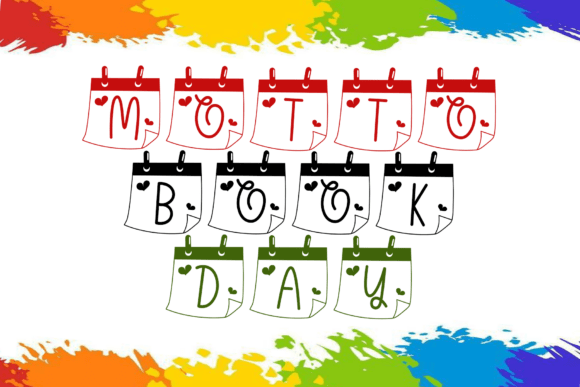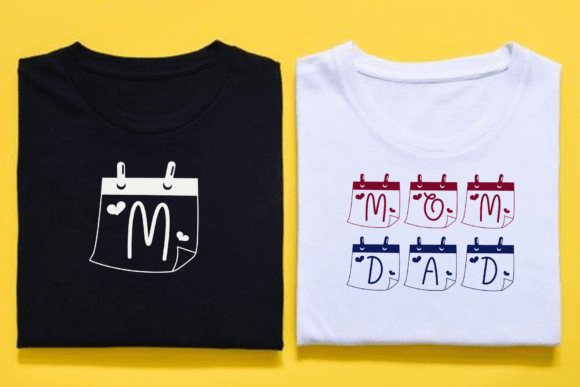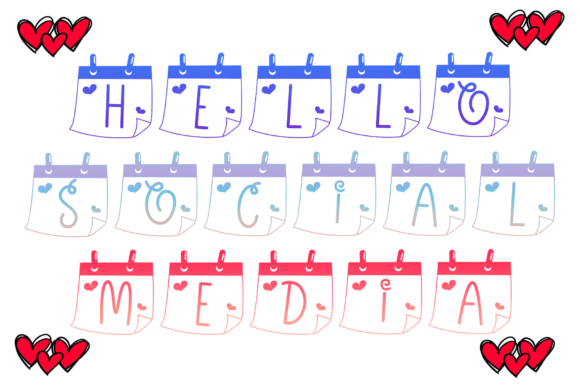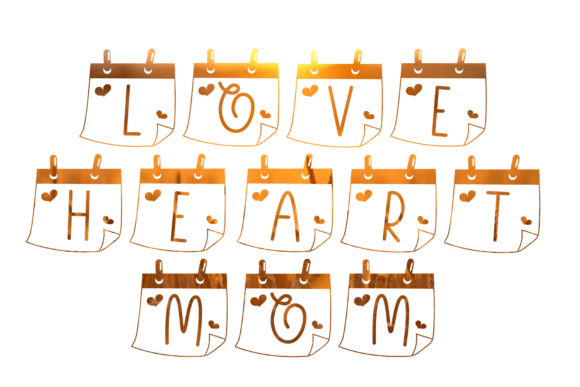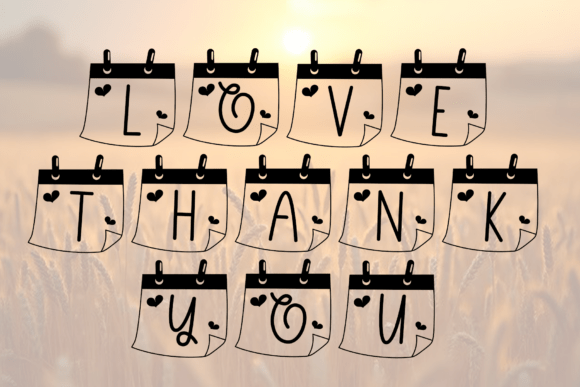
The Joy of Kids Party Font: Bringing Fun to Your Designs
Have you ever been brainstorming a creative project with kids and suddenly, a burst of colorful chaos erupts in your imagination? Maybe it’s a birthday party invitation, a classroom craft, or a children’s book that’s begging to be brought to life. Whatever the project, one thing’s for sure – it needs a font that’s just as playful and energetic as the kids themselves.
Enter Kids Party Font, a delightful display font that’s bursting with creativity and designed to bring a smile to your face. With its hand-drawn feel and adorable notepad-style banners, this font is perfect for adding a touch of whimsy to your designs. Whether you’re a designer looking to add some fun to your projects or a parent wanting to make your child’s birthday party invitations truly special, Kids Party Font is the perfect tool to have in your arsenal.
Kids Party Font Key Features
- Font Style: A playful, cursive font with a fun and energetic feel, perfect for kids’ party invitations, decorations, and other materials.
- Unique Characteristics: Features a customizable color scheme, allowing users to change the font color to match their party theme or brand identity.
- Script and Ornament Options: Includes a range of script and ornament options to add extra flair and personality to party designs.
Designer Review: Kids Party Font
Overall, I’d say the Kids Party Font has some nice touches, but it’s not without its flaws. ✨ First, I appreciate the playful, cursive feel of the font. It’s perfect for birthday invitations, party decorations, or any other project that needs a lighthearted vibe. The font is also highly customizable, with a wide range of size and color options available.
- ✨ The font is highly customizable, with a wide range of size and color options available.
- ✨ The playful, cursive feel of the font is perfect for birthday invitations, party decorations, or any other project that needs a lighthearted vibe.
- ✨ The font is suitable for both digital and print projects.
However, there are some limitations to consider ⚠️. The font can be a bit too ornate for some projects, and the cursive style can be difficult to read at small font sizes. Additionally, the font is not available in as many languages as some other fonts, which can be a limitation for international projects.
- ⚠️ The font can be a bit too ornate for some projects.
- ⚠️ The cursive style can be difficult to read at small font sizes.
- ⚠️ The font is not available in as many languages as some other fonts.
Overall, I’d recommend the Kids Party Font for projects that require a lighthearted, playful vibe. However, it may not be the best choice for more formal or complex projects.
Tips for Getting the Most Out of Kids Party Font
For best results, use the Kids Party Font in conjunction with colorful graphics and illustrations. You can also experiment with different font sizes and styles to create visual interest.
Kids Party Font is perfect for creating invitations, party decorations, and other materials for children’s parties. It’s also great for creating educational materials, such as worksheets and activity sheets, that are fun and engaging for kids.
Q: What is the recommended font size and style for using the Kids Party Font in a design project?
The recommended font size for the Kids Party Font is between 12pt and 48pt, depending on the design application and the desired level of legibility. For headings, use the bold or italic styles to add emphasis, while for body text, use the regular style for optimal readability.